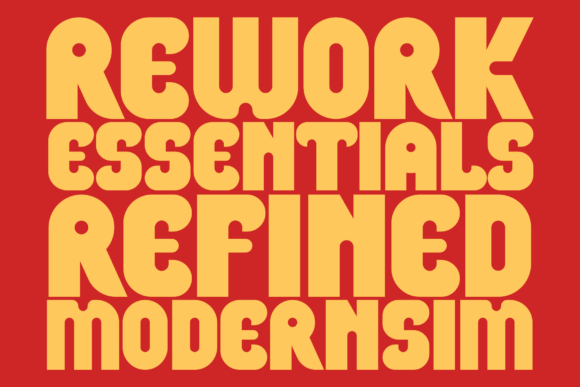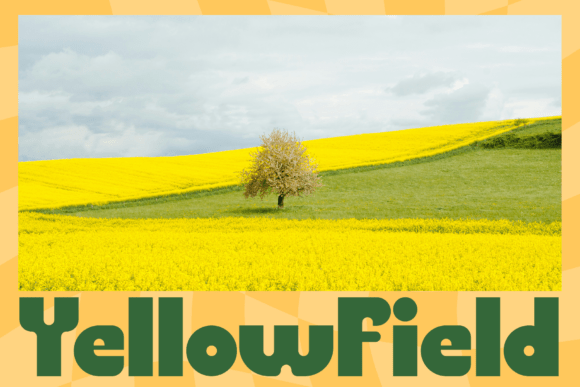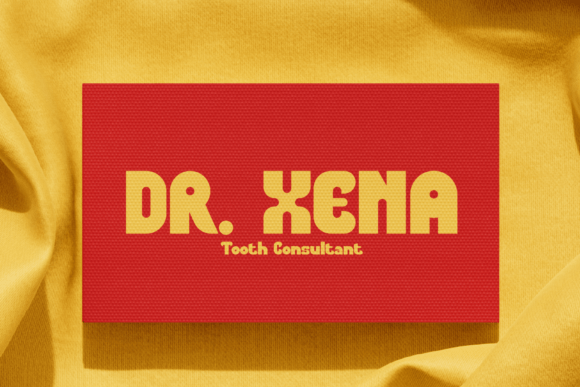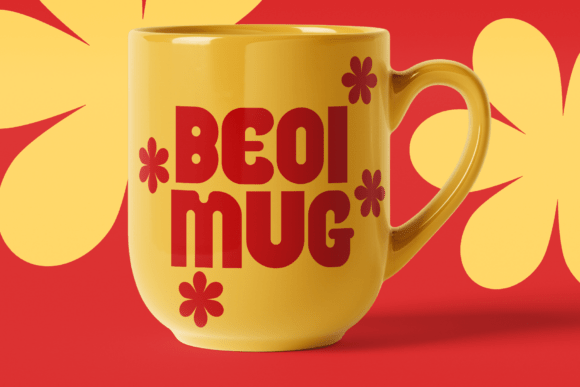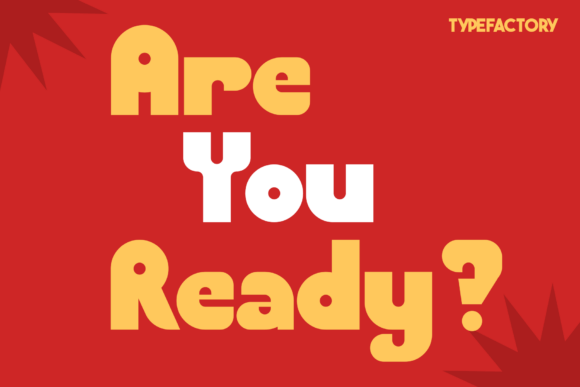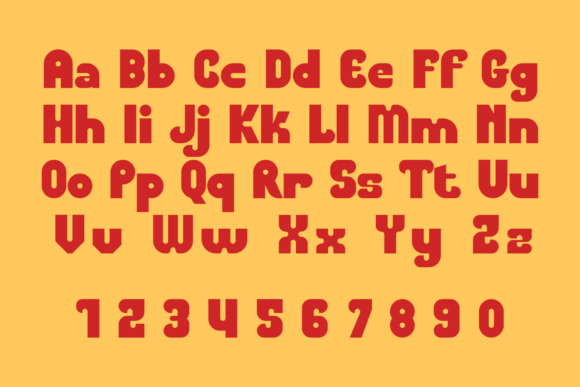
Introduction to Prepora Font
Prepora is a bold bulky display font with rounded geometric letterforms, heavy proportions, and playful retro-inspired details.
Its thick structure and soft curves make it suitable for posters, merchandise, packaging, stickers, children-themed graphics, food branding, café visuals, headline layouts, and fun logo designs The font includes alternates and ligatures to help create expressive display typography with a friendly, chunky visual style.